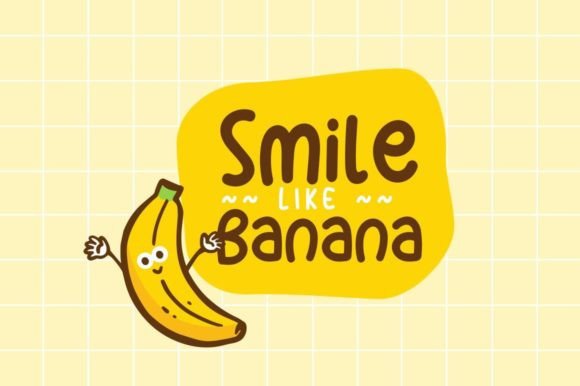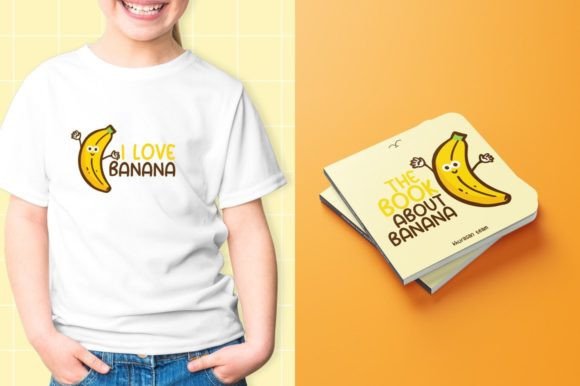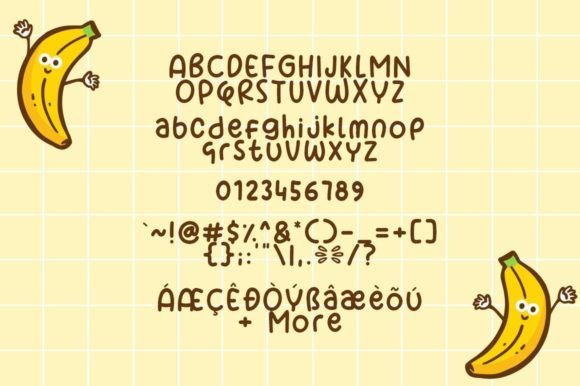
Unleashing the Fun with Banana Days Font
Who hasn’t felt that rush of excitement when a creative idea pops into their head? Maybe it’s the middle of the night, and suddenly you’re envisioning the perfect design for a children’s game or cartoon. The possibilities are endless, and the fun begins.
That’s where Banana Days Font comes in – a delightful display font that adds a playful touch to any design. Perfect for cartoon-related designs, kids’ games, or any creation that requires a whimsical feel, this font is sure to bring a smile to your face and your audience’s as well. Whether you’re a seasoned designer or just starting out, the Banana Days Font is a valuable addition to your toolkit, offering endless possibilities for creativity and self-expression.
Banana Days Font Key Features
- Size: The font family includes 5 different font weights, ranging from Light to Extra Bold, providing flexibility for various design applications.
- Unique Characteristics: The font features a distinctive, hand-drawn feel with subtle imperfections, giving it a warm and organic appearance.
Designer Review: Banana Days Font
Overall, I think the Banana Days Font is a unique and eye-catching addition to any design project. ✨ The font’s playful, handwritten feel makes it perfect for creating a fun and lighthearted atmosphere. The variety of characters, including ligatures and swashes, adds to the font’s charm.
One of the standout features of Banana Days Font is its versatility. ✨ It can be used for a wide range of applications, from marketing materials to social media graphics. The font’s bold and colorful personality makes it a great choice for projects that need to stand out.
- Unique, handwritten feel that adds a touch of personality to designs
- Versatile and can be used for a wide range of applications
- Includes ligatures and swashes for added character
- Bold and colorful personality makes it perfect for projects that need to stand out
- ⚠️ The font may be too playful or childish for more formal or professional projects
- ⚠️ Some characters may not be available in all languages, which could limit its use for global projects
Overall, I think the Banana Days Font is a great choice for designers who want to add a touch of whimsy and personality to their projects. While it may not be suitable for all types of projects, its unique features and versatility make it a valuable addition to any design toolkit.
Use the Banana Days font to add a playful and whimsical touch to your designs. Pair it with bright colors and bold graphics to create a fun and eye-catching visual identity.
Experiment with different font sizes and styles to create a unique and custom look.
Use the font to create custom logos or graphics that reflect your brand’s personality and style.